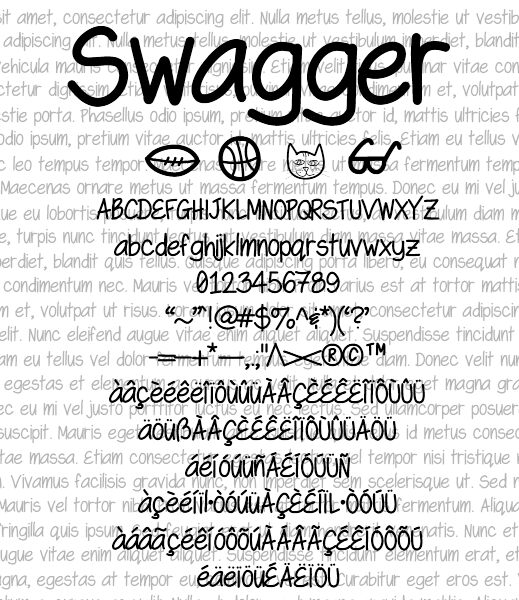
SwaggerLight
Swagger Light by Krysten Tom is a free handwritten font with tall, slim letters and an easy, unhurried line. Stroke widths shift gently, and the shapes stay pleasantly uneven.
Its loose contours share the directness of simple line drawings, making the font a natural fit for illustrated packaging, cafe menus, and lifestyle editorial pages. On small event posters and handmade product labels, it can become part of the brand identity itself, echoing sketch-style icons and informal artwork rather than reading like neutral type.
KrystenTom